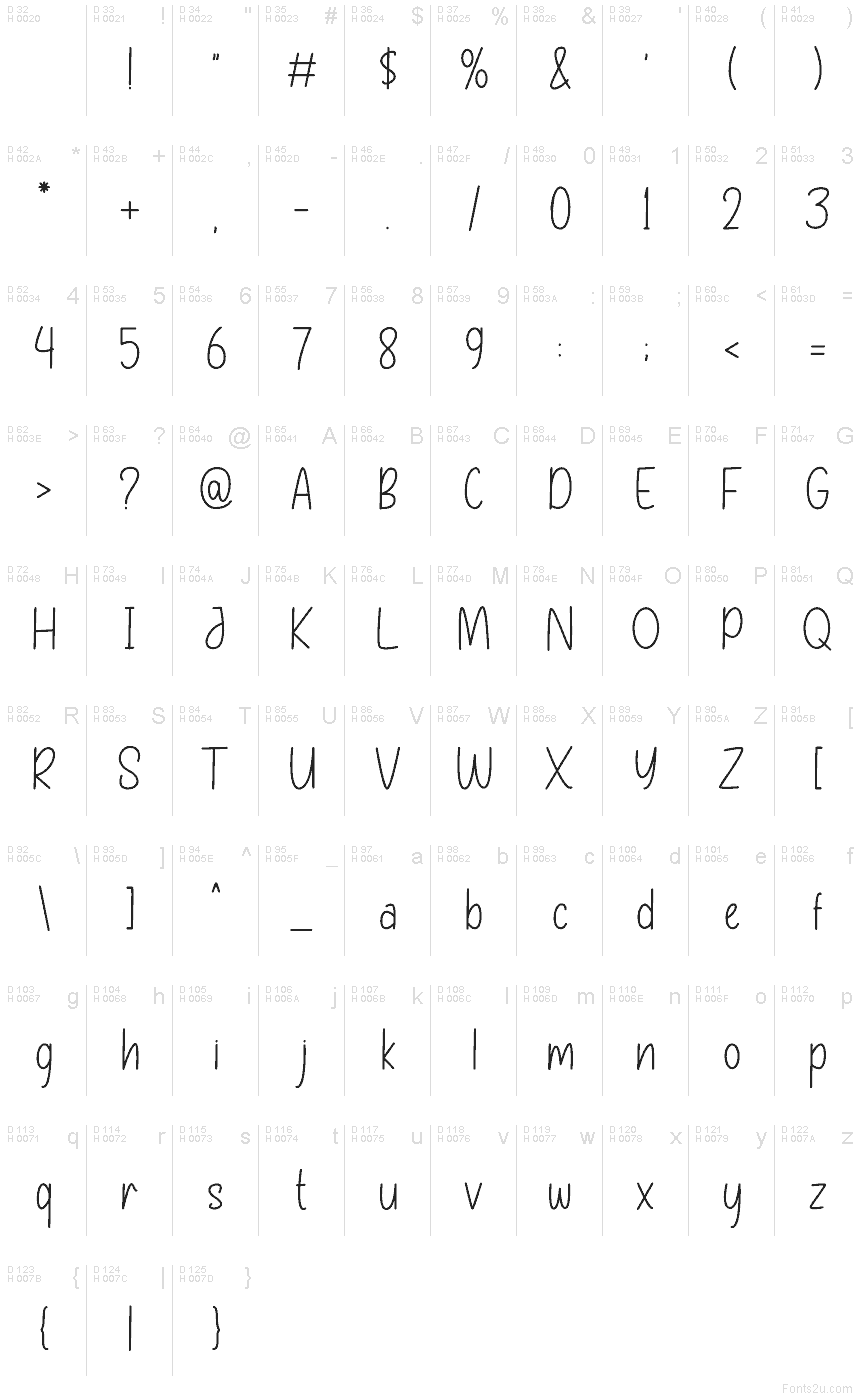
Brenda Home font by RantautypeStudio is a free handwritten typeface that solves the “cute but readable” challenge. Its slim, monoline strokes and gentle roundness feel like a neat gel-pen note—soft, friendly, and surprisingly tidy. Even spacing and a steady rhythm keep it calm on the page, so your message stays clear without losing that human warmth.
Using Brenda Home, you’ll get effortless charm for greeting cards, teacher worksheets, recipe cards, social quotes, kid-friendly branding, packaging for small-batch goods, and casual blog headers. This free font holds up at small sizes and looks crisp when enlarged. For a polished look, pair it with a simple sans for subheads and captions, and let Brenda Home carry the headline.